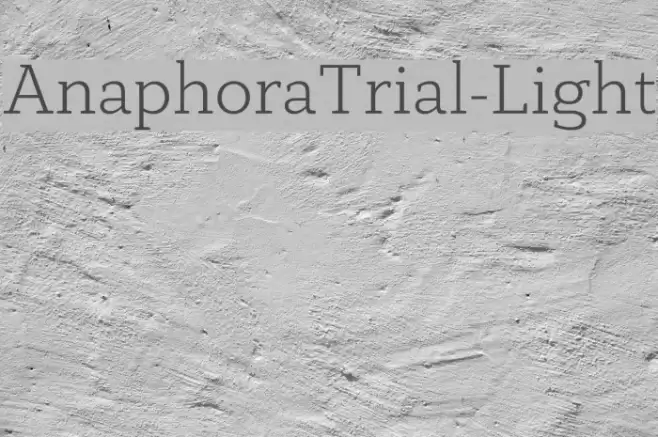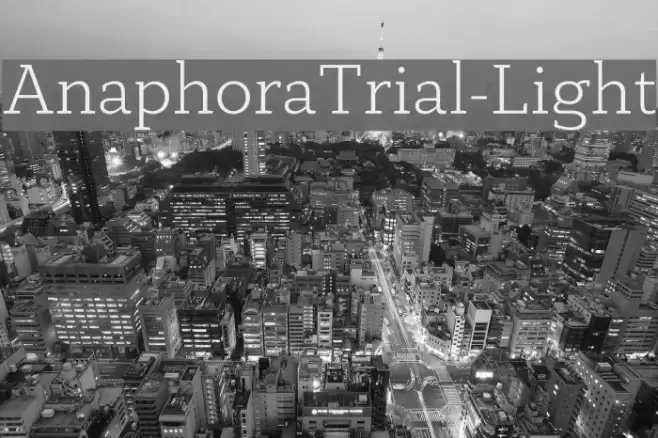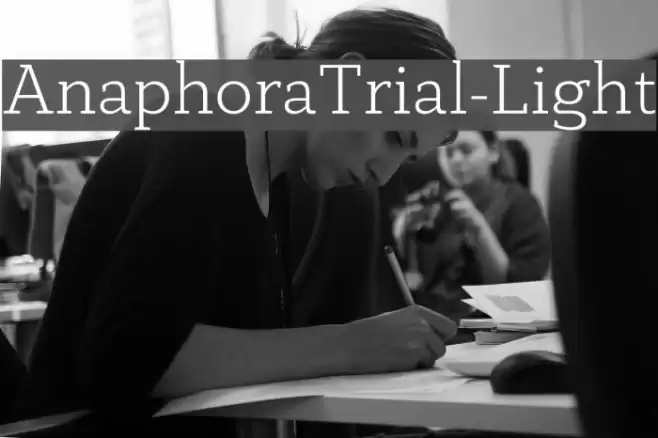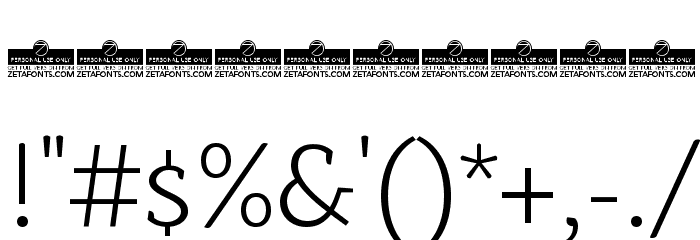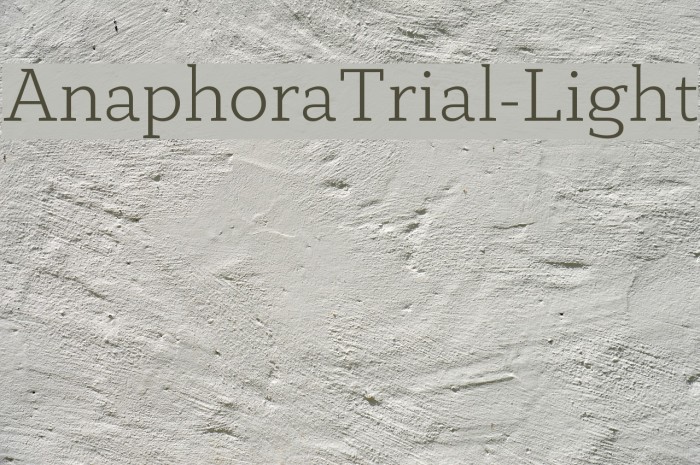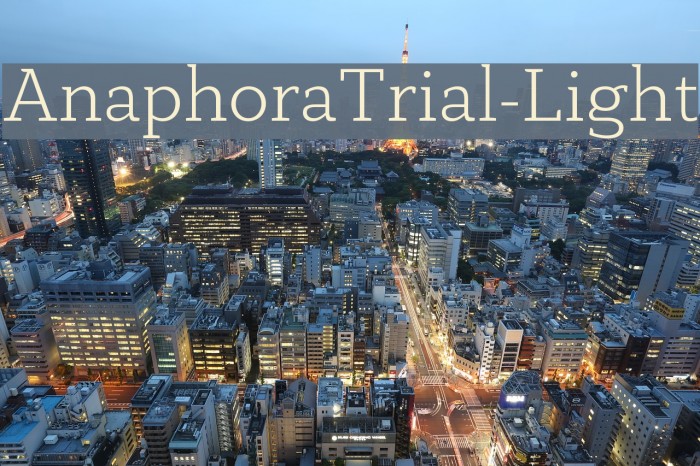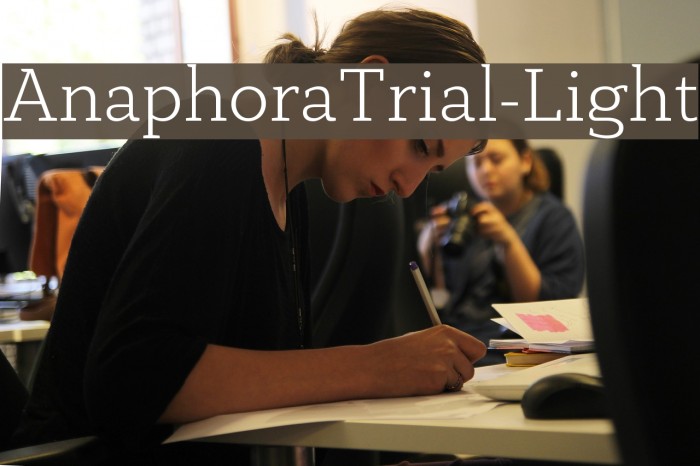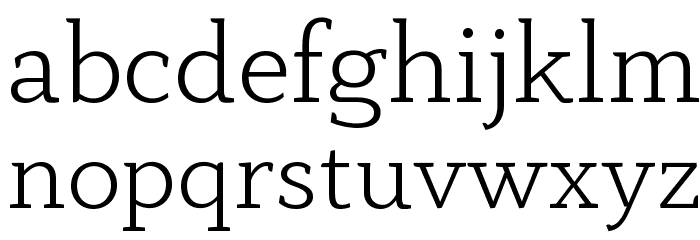
AnaphoraTrial-Light Font
AnaphoraTrial-Light Description
This font features a clean and elegant design with a light weight, making it suitable for a variety of applications. The characters are well-proportioned, with a slightly condensed width that adds a modern touch. The uppercase letters are bold and commanding, while the lowercase letters maintain a graceful flow. The numerals and special characters are designed with clarity and precision, ensuring readability. The overall style is classic yet contemporary, making it versatile for both digital and print media.
A clean, elegant font with a light weight and modern, slightly condensed design from Uncategorized fonts.
- Proposed Projects: Ideal for branding, editorial design, websites, and print materials where a modern yet classic look is desired.